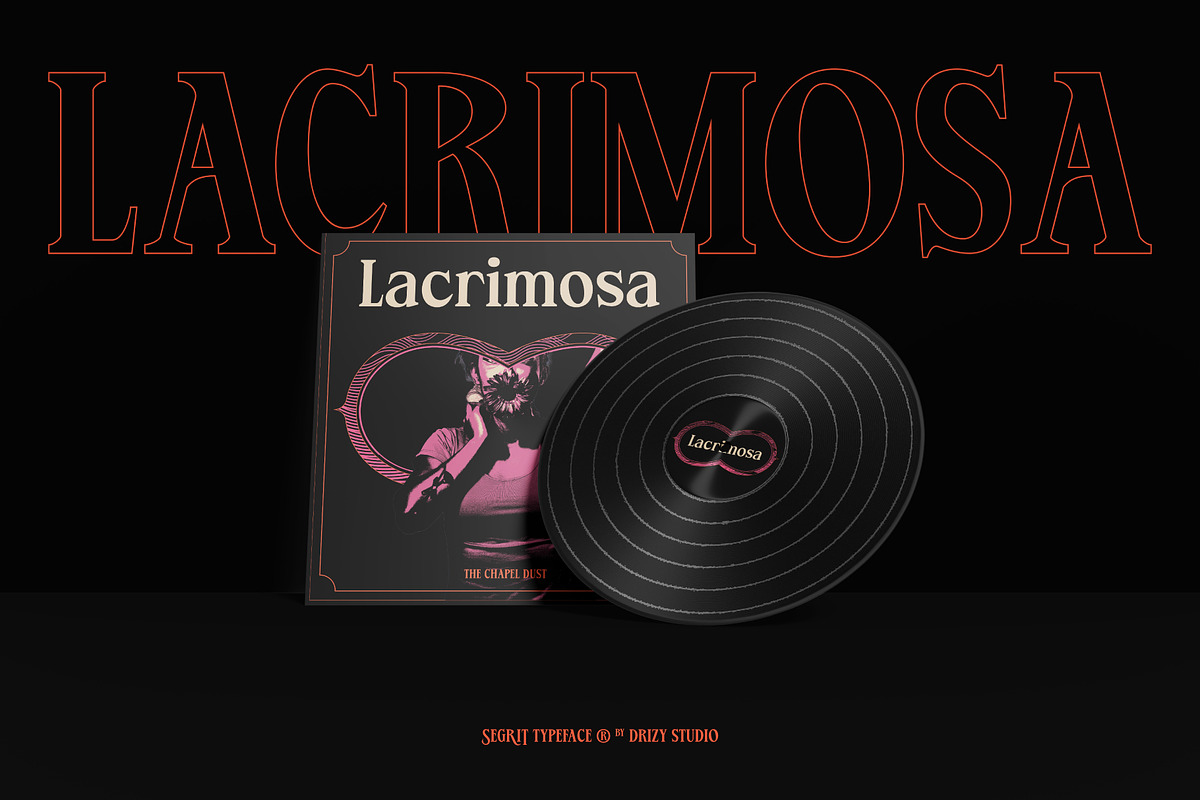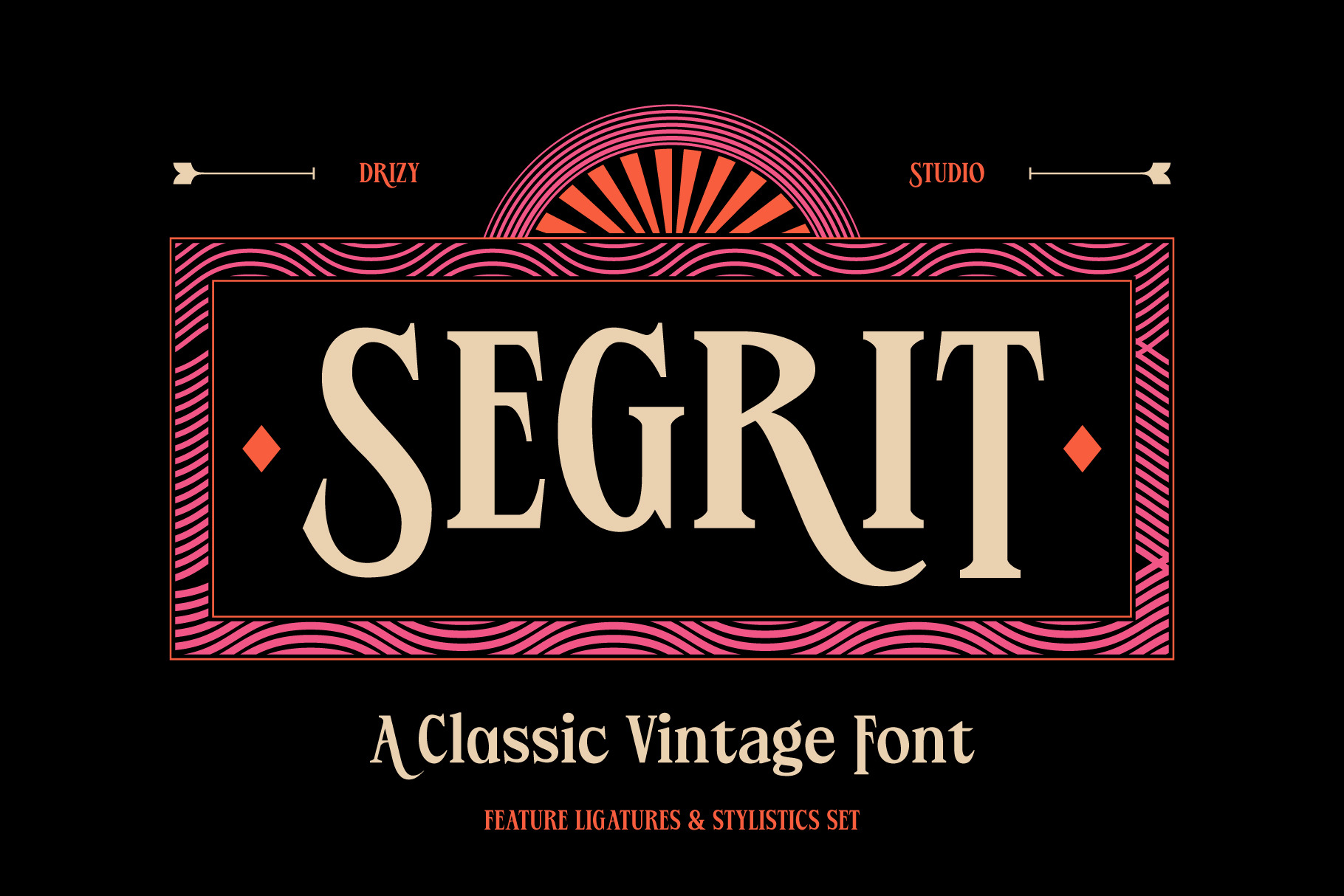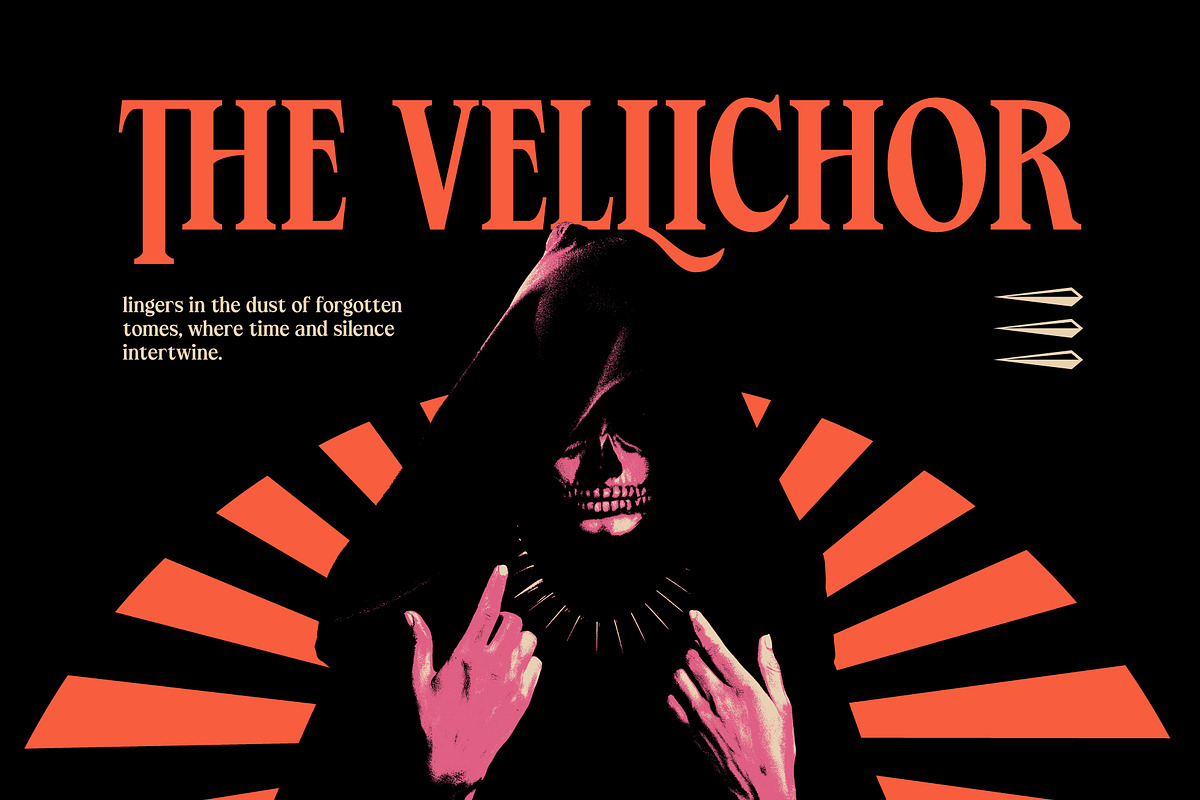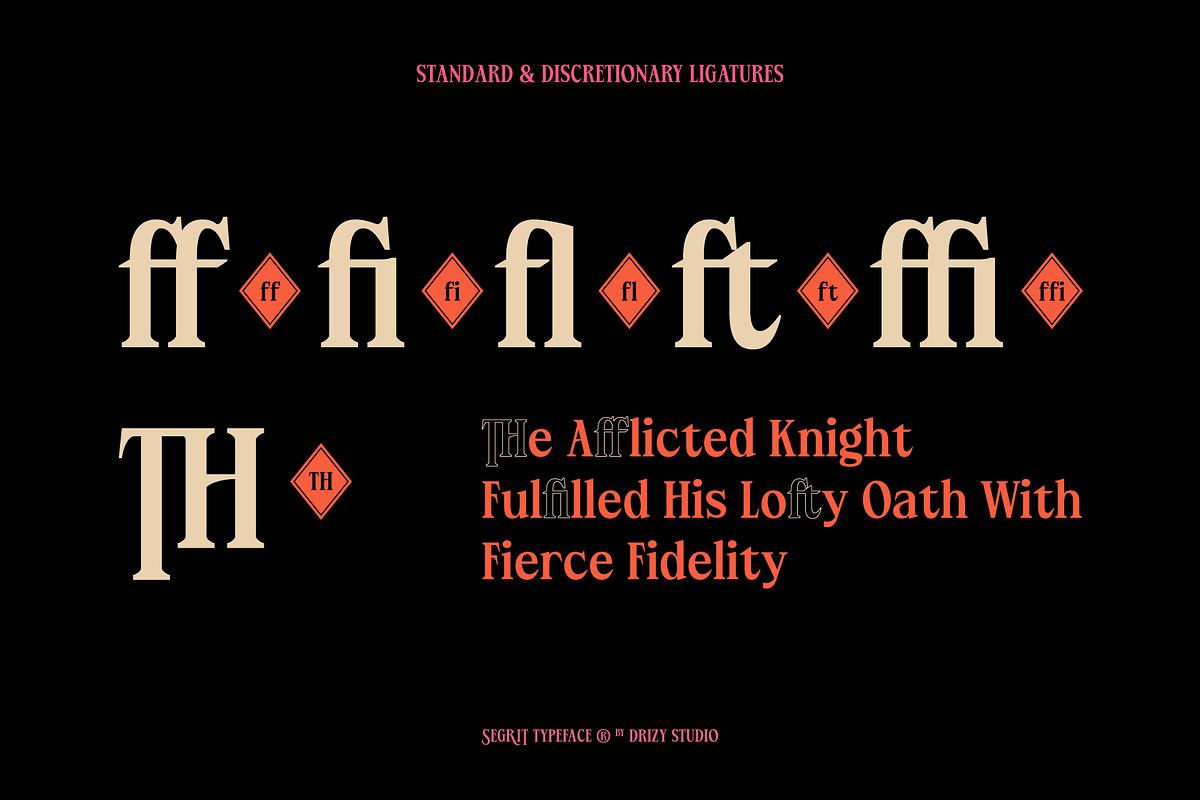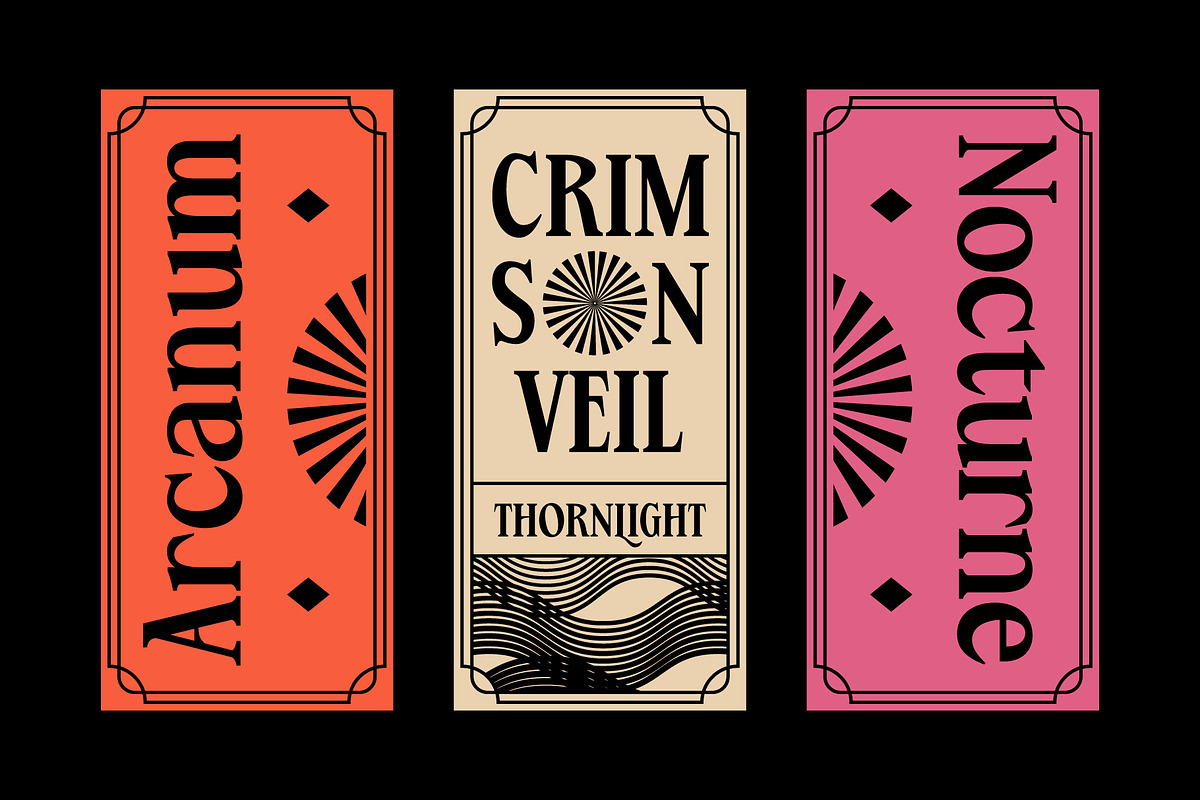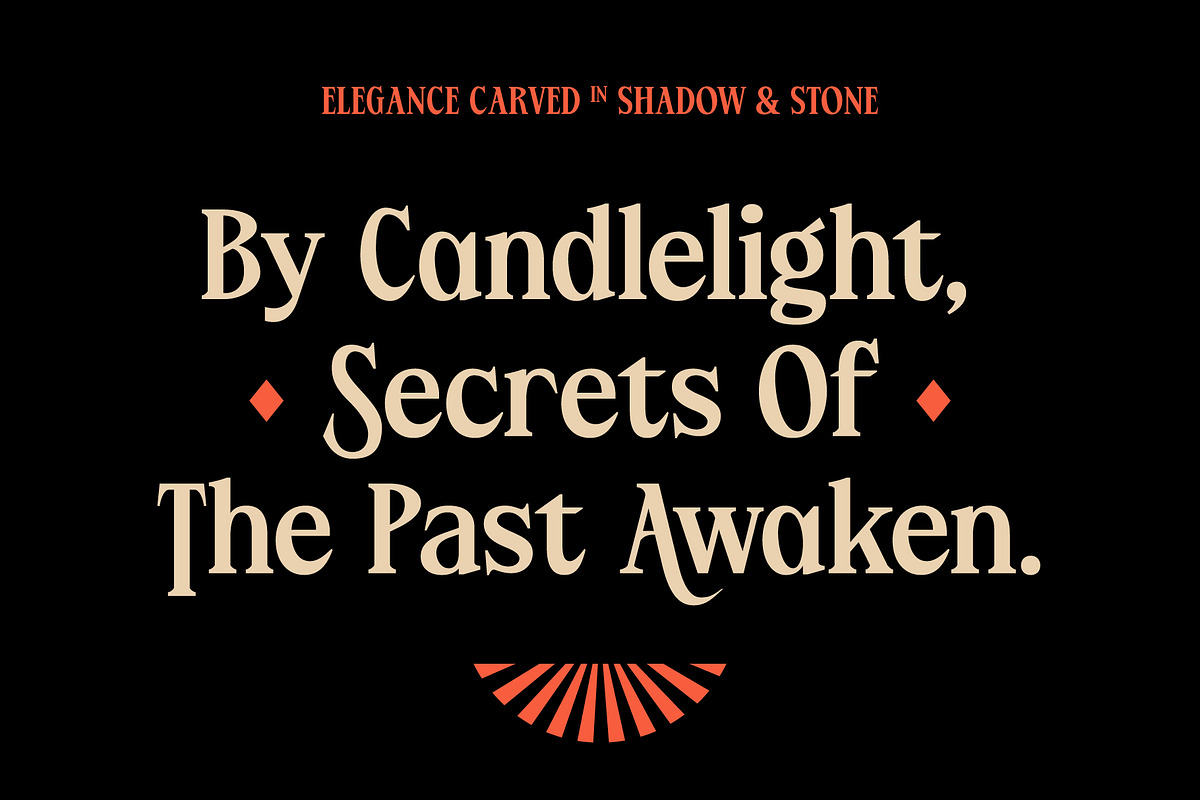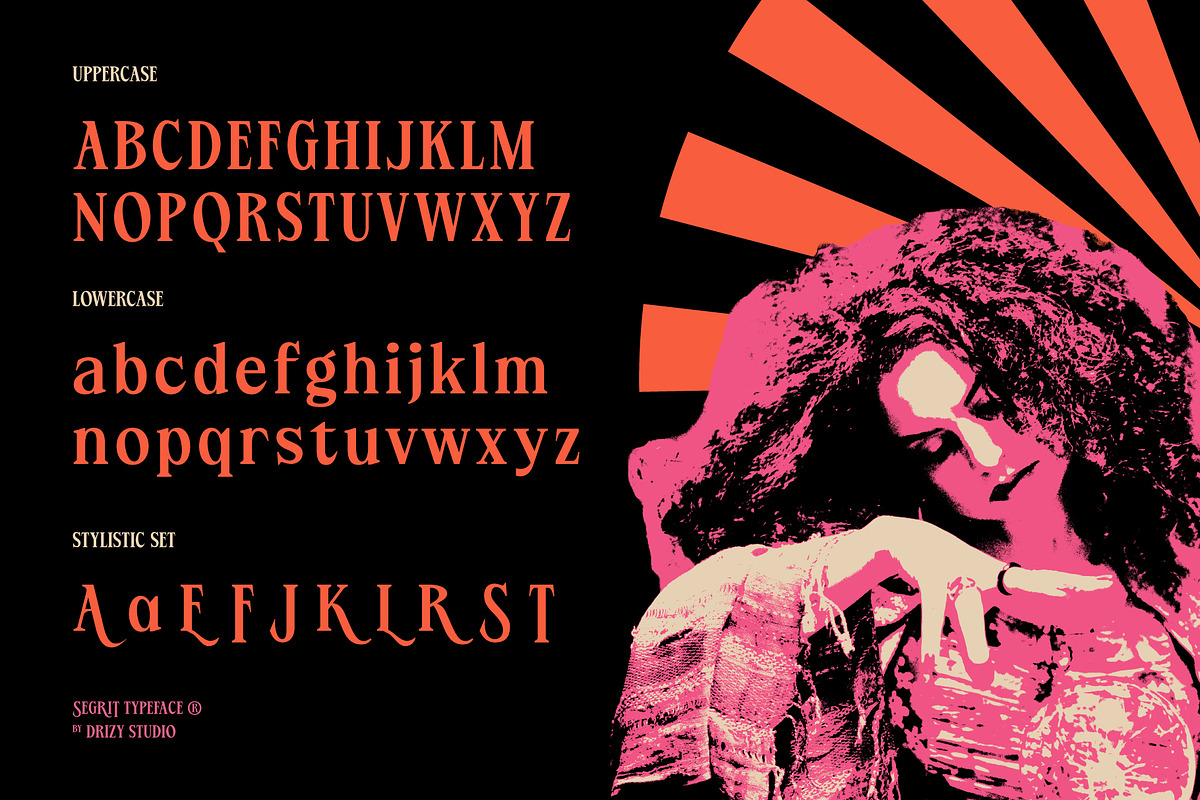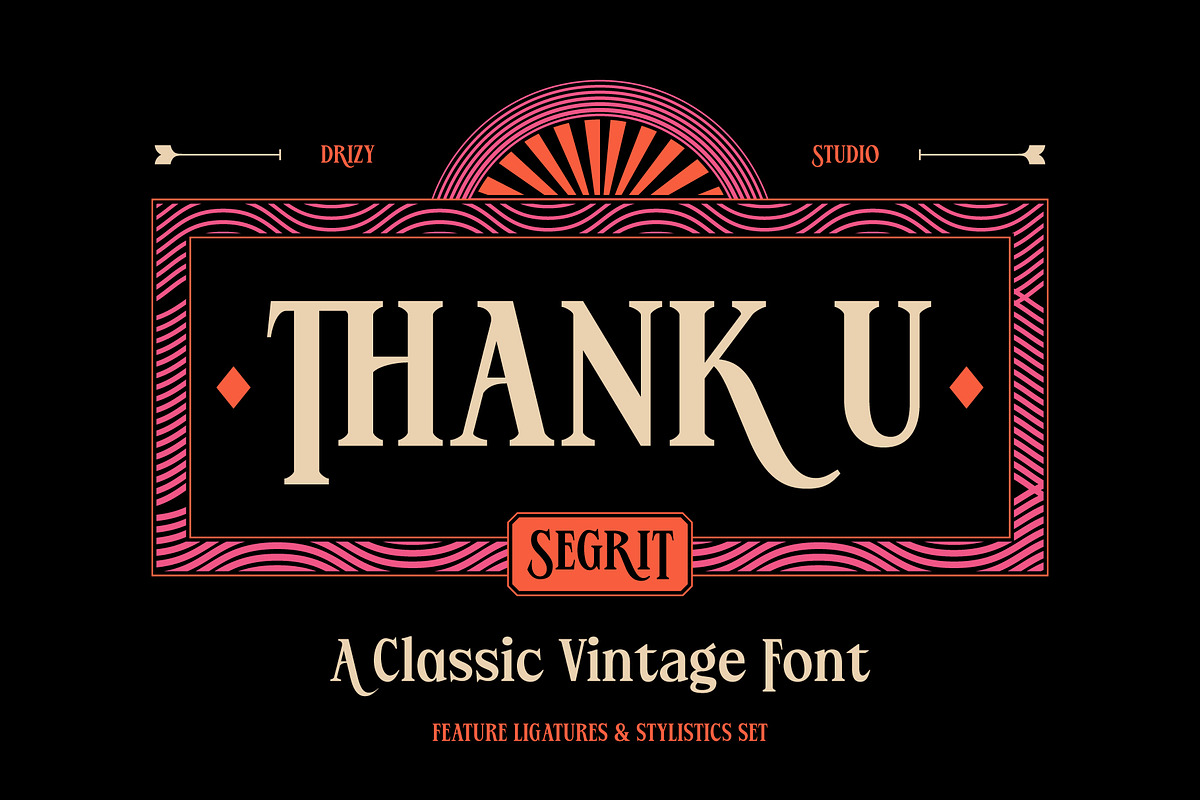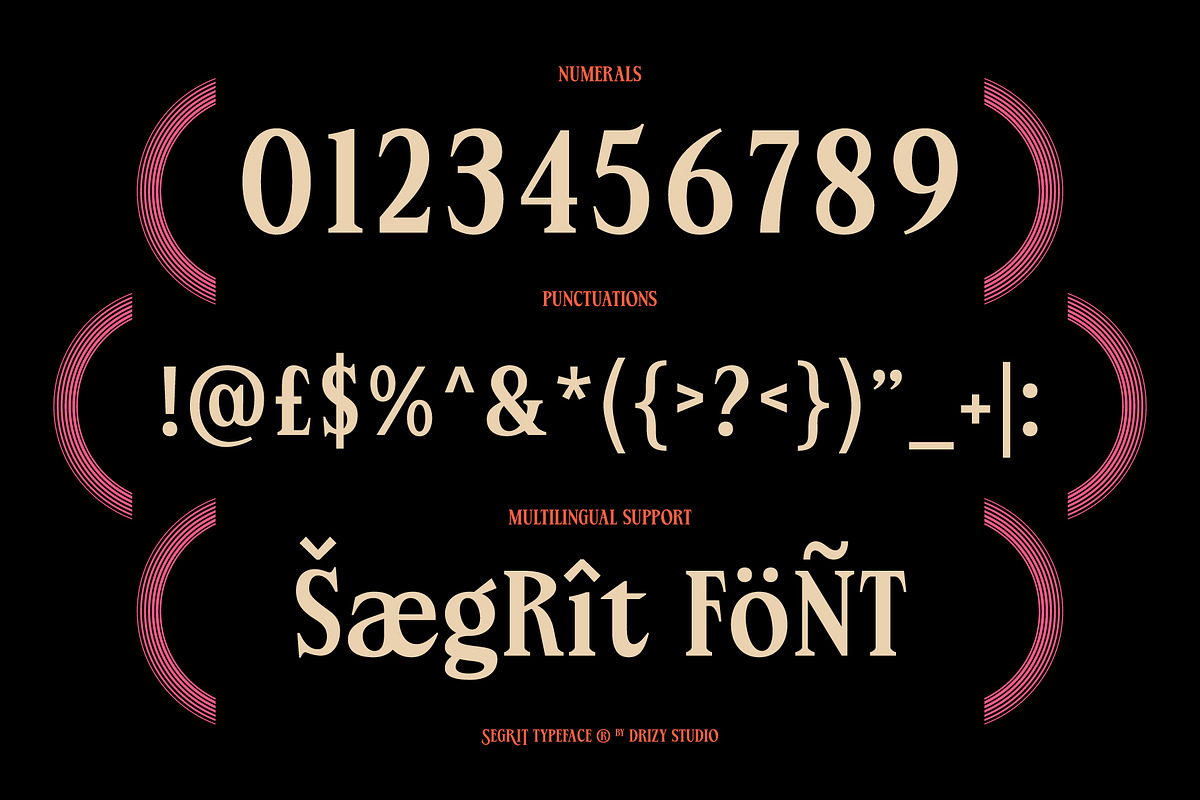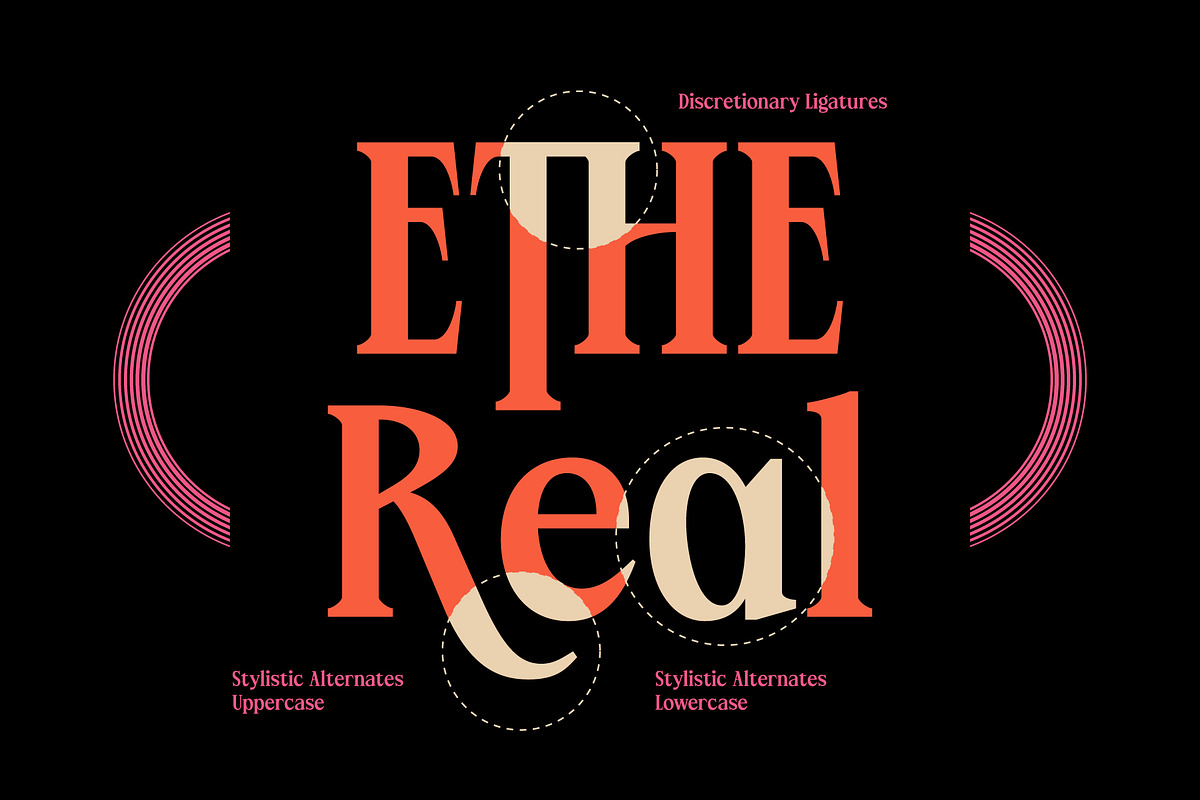
Segrit – Classic Vintage Font
Step into the eerie elegance of the past with Segrit, a spine chilling vintage typeface that channels the macabre beauty of Classic Horror. With its sharp serifs, haunting curves, and timeworn texture, Segrit evokes the chilling charm of Victorian-era posters, Gothic book covers, and early 20th century horror cinema. Perfect for Halloween branding, ghost stories, occult merchandise, or anything that needs a touch of antique dread, this font breathes dark sophistication into every letter. Let your designs whisper secrets from the shadows. Segrit is not just a font, it’s an invitation to the unknown.
Segrit – Classic Vintage Font features:
- Character Set (Uppercase & Lowercase)
- Standard Ligature
- Stylictics Set
Elevate and explore the design possibilities with this Classic Horror Font!